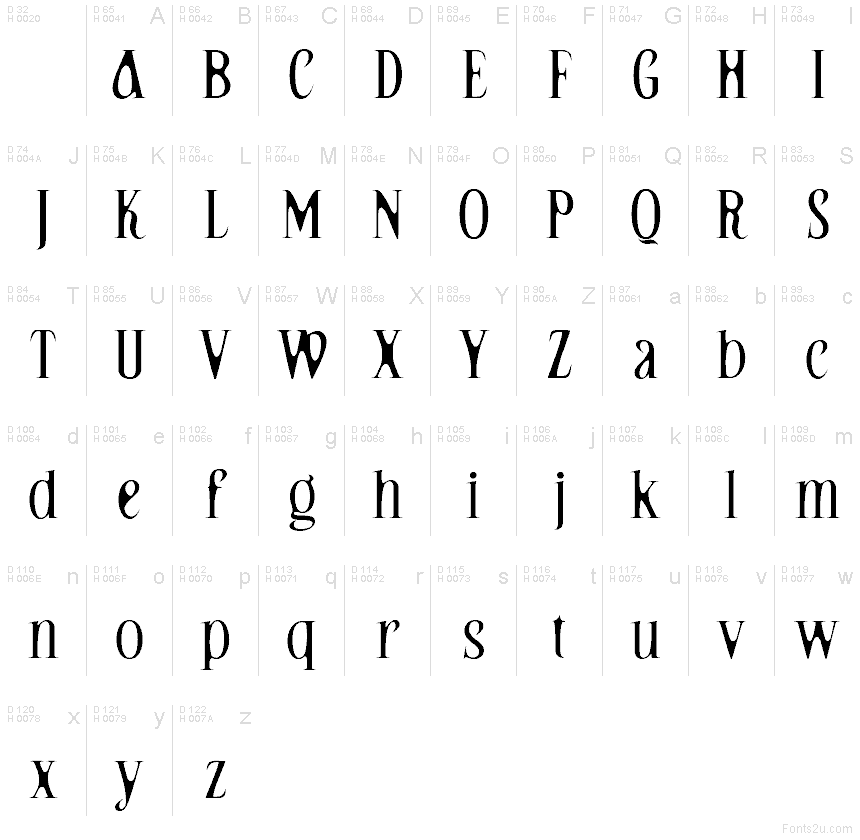
CS Korima Drawn font by Craft Supply Co. is a free condensed vintage serif display font that solves the “elegant but not cold” brief. Built within the CS Korima family, it packs tall, narrow proportions with inky, hand-drawn edges and tapering strokes that swell and thin like a calligrapher’s pen. The result hits that sweet spot: dramatic contrast for impact, organic wobble for warmth, and compact width that slips into tight layouts without feeling cramped.
This free font shines on boutique logos, apothecary-style labels, editorial headlines, posters, menus, and heritage-inspired packaging. Using CS Korima Drawn gives headings a refined hush with just enough grit to feel human, while its steady rhythm keeps wordmarks readable at display sizes. Quick tip: pair it with a plain grotesque sans for body copy, and give CS Korima Drawn a touch of extra letterspacing to let those slender forms breathe.